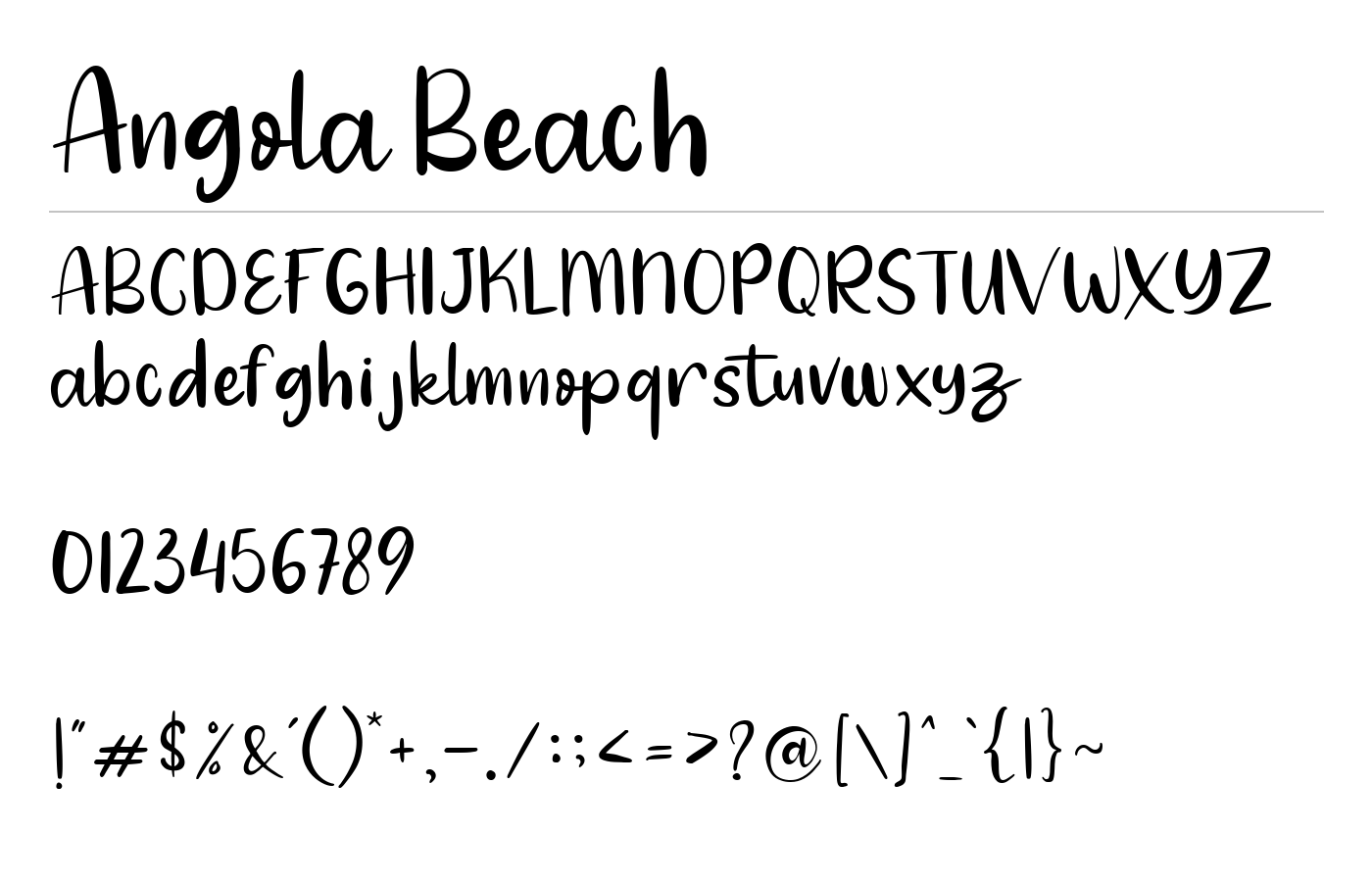
Angola Beach is a playful and friendly handwritten sans serif font with a casual, informal vibe. It features a smooth, slightly uneven stroke flow with medium weight and tall x-height, making it both legible and charming. This font is perfect for creative projects, children’s products, casual branding, and any design that seeks a warm, approachable personality.
Angola Beach Font
About Angola Beach Font
| Font family | Angola Beach Font |
| Designer | Mozarella Art |